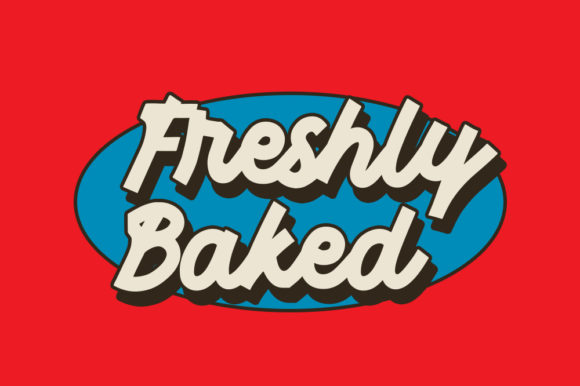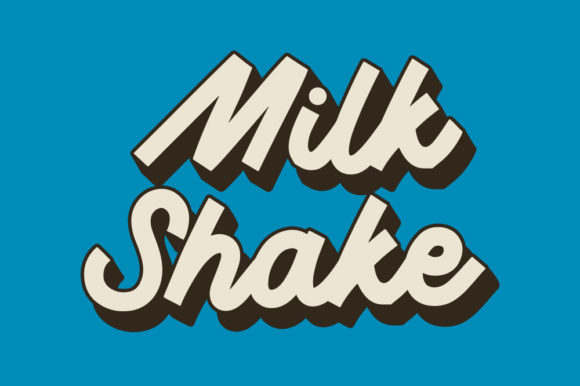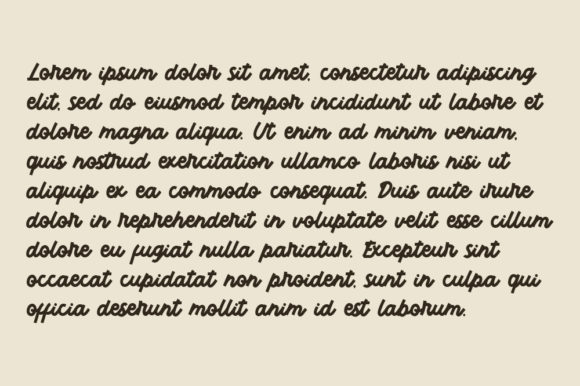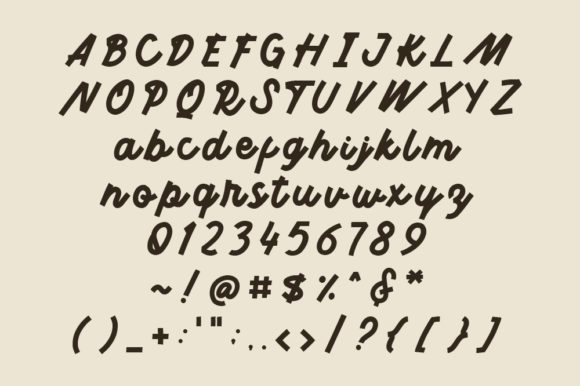
Monserta Font
About Monserta Font
Monserta feels playfully nostalgic and delivers an incredible vintage aesthetic. Use this script font to add that special retro touch to any design idea you can think of!